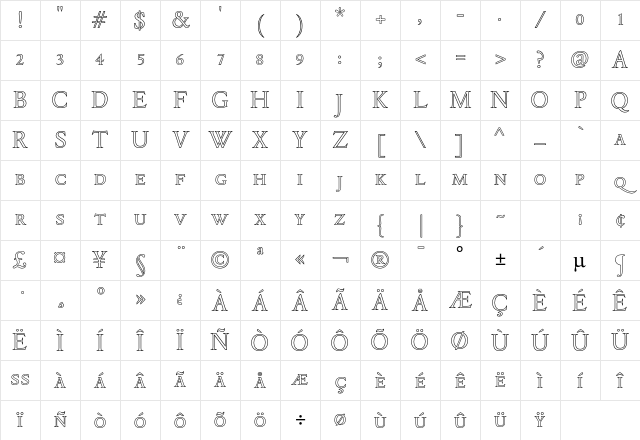
Complete DTL Elzevir T Caps Outline glyph index. Displaying only characters natively supported by DTL Elzevir T Caps Outline font.
DTL Elzevir is built around its visual character rather than neutral utility - its distinctive forms are designed to make an impression at display sizes.
Font Pairing: Pair with a clean neutral sans-serif for body copy to let DTL Elzevir's character lead without overwhelming the composition.
Pro Tip: Use DTL Elzevir exclusively at display sizes - it was designed to be seen, not read at length. Let a neutral companion handle body copy.
Who designed the DTL Elzevir T Caps Outline font?